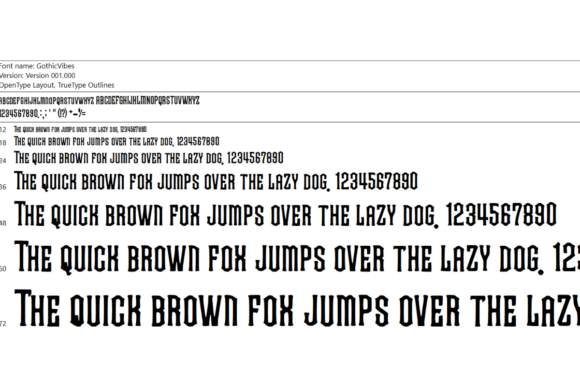
Unleash the Dark Side of Design with Gothicvibes Font
Are you looking to add a touch of mystery and intrigue to your design project? Look no further than the Gothicvibes Font. This decorative gothic-style display font is perfect for designers and crafters who want to create eye-catching titles, posters, and designs with a dark, vintage, or edgy aesthetic.
The Gothic Vibes Font: A Medieval-Inspired Masterpiece
Gothic Vibes font features tall, sharp-edged letterforms with a dramatic, medieval-inspired flair. The font’s design is reminiscent of traditional Gothic architecture, with intricate details and a sense of grandeur. This makes it ideal for projects that require a sense of luxury, mystery, or horror.
Perfect for Halloween Themes and Horror Designs
Halloween is just around the corner, and Gothic Vibes font is the perfect choice for creating spooky and eerie designs. Whether you’re designing invitations, posters, or social media graphics, this font will add a touch of darkness and intrigue to your project. It’s also perfect for horror movie posters, haunted house invitations, or any design that requires a sense of fear and suspense.
Key Features of Gothic Vibes Font
- Decorative Gothic-Style Display Font: Gothic Vibes font is a decorative font that’s perfect for display purposes. Its unique design makes it stand out from other fonts, ensuring your project gets noticed.
- Tall, Sharp-Edged Letterforms: The font features tall, sharp-edged letterforms that add a sense of drama and elegance to your design.
- Medieval-Inspired Flair: The font’s design is inspired by traditional Gothic architecture, giving it a sense of luxury and grandeur.
- Eerie and Intriguing: Gothic Vibes font is perfect for designs that require a sense of mystery and intrigue. Its unique design will add a touch of darkness and suspense to your project.
How to Use Gothic Vibes Font in Your Design
Using Gothic Vibes font in your design is easy. Here are a few tips to get you started:
- Use it as a Title Font: Gothic Vibes font is perfect for titles and headings. Use it to create eye-catching titles that grab attention.
- Pair it with Other Fonts: Gothic Vibes font can be paired with other fonts to create a unique and interesting design. Try pairing it with a sans-serif font for a contrasting look.
- Experiment with Colors: Gothic Vibes font looks great in bold, dark colors. Experiment with different colors to find the perfect combination for your design.
Benefits of Using Gothic Vibes Font
Using Gothic Vibes font in your design has several benefits. Here are a few:
- Unique Design: Gothic Vibes font has a unique design that will set your project apart from others.
- High-Quality Design: The font is designed with high-quality craftsmanship, ensuring it looks great in any design.
| Font Name | Gothicvibes Font |
| Author | TCSP Designs |
Immerse your project in an aura of intrigue with the Gothicvibes Font. This decorative gothic-style display font is perfect for designers and crafters who want to create eye-catching titles, posters, and designs with a dark, vintage, or edgy aesthetic. With its tall, sharp-edged letterforms and medieval-inspired flair, Gothic Vibes font is sure to add a touch of mystery and intrigue to your design. So why wait? Unravel the mysteries of your creativity with Gothic Vibes font and take your design to the next level.
Get Ready to Cast a Spell with Gothic Vibes Font
Don’t miss out on the opportunity to add a touch of darkness and intrigue to your design. Gothic Vibes font is the perfect choice for designers and crafters who want to create unique and eye-catching designs. So get ready to cast a spell with Gothic Vibes font and take your design to new heights.